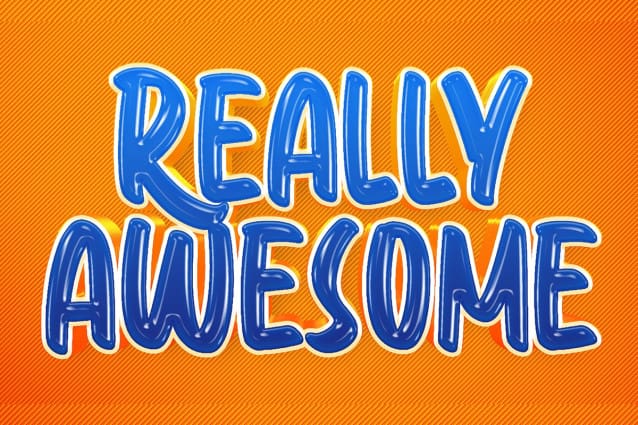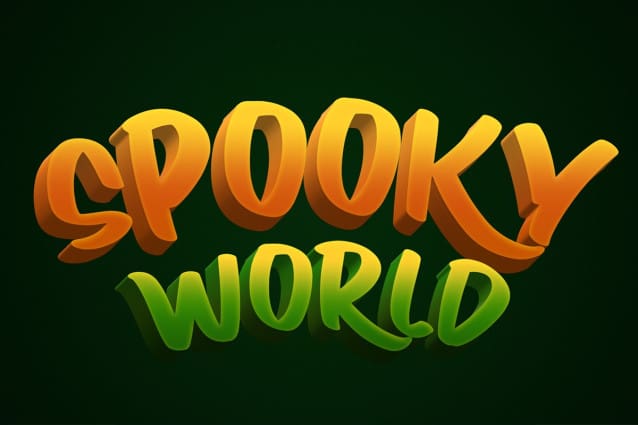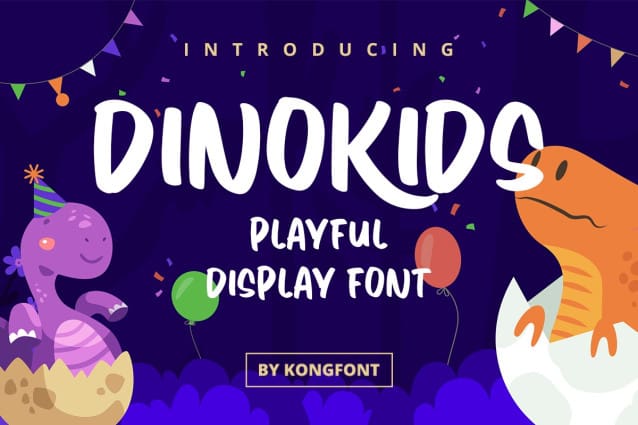
Dinokids Playful Font
Dinokids Playful Font – Modern Kids Font was created to present a simple, fun, and cute impression to anyone who sees it. This is in line with the characteristics of clean, slightly inflated, and cute letters. Each letter can be distinguished easily. People who read texts using this typeface do not have to try hard to read and understand them.
As the name implies, Dinokids Playful – Modern Kids Font is perfect for use as a poster containing kids’ needs. This font is also very suitable when used for children’s equipment, such as clothing item designs. This is because of its simple and cute shape. This type of font can be printed in small or large sizes and still looks good up close or from a distance.
For people who like simplicity and do not like the appearance of a busy design, Dinokids Playful – Modern Kids Font will be a good choice. This font is also suitable for use as a digital font, such as in a video, movie title, and displaying quotes on social media.